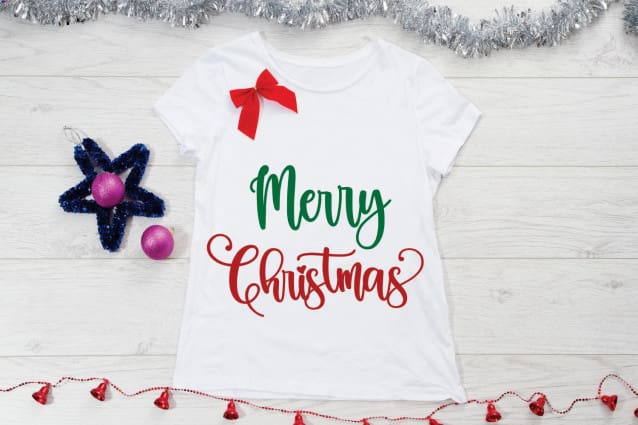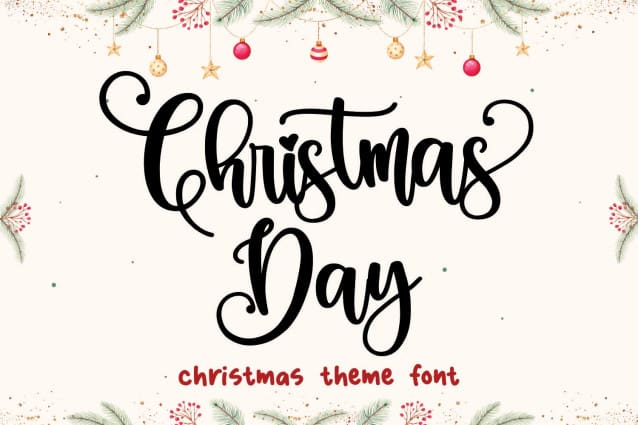
Christmas Day Font
Christmas Day Font is a delightful and charming script handwritten that encapsulates the essence of a cute handwritten design, perfect for celebrating a wide range of occasions and themes throughout the year. This whimsical font is particularly well-suited for adding a touch of festive magic to Christmas, winter, spring, autumn, holiday, New Year, crafting, and embroidery projects.
Embrace the enchanting beauty of “Christmas Day” as it gracefully dances across your designs. With its delicate letterforms and flowing strokes, this font captures the essence of a snow-covered wonderland, evoking feelings of tranquility, joy, and winter magic. Whether you’re crafting seasonal invitations, holiday cards, or winter-themed decorations, this font will add a touch of whimsy and sophistication.
Don’t settle for ordinary when you can create extraordinary designs with the captivating power of “Christmas Day” font. Its graceful curves and handcrafted style bring a sense of authenticity and warmth to your projects, making them truly stand out in the winter season.